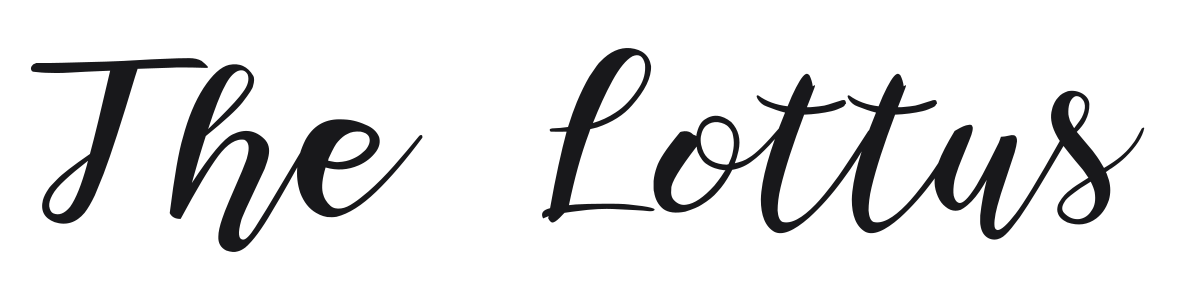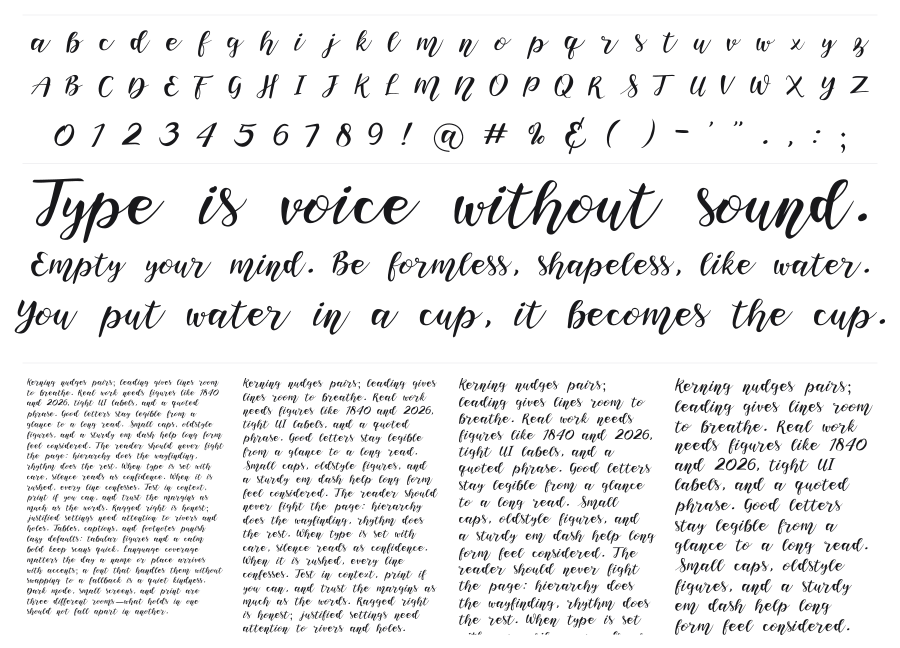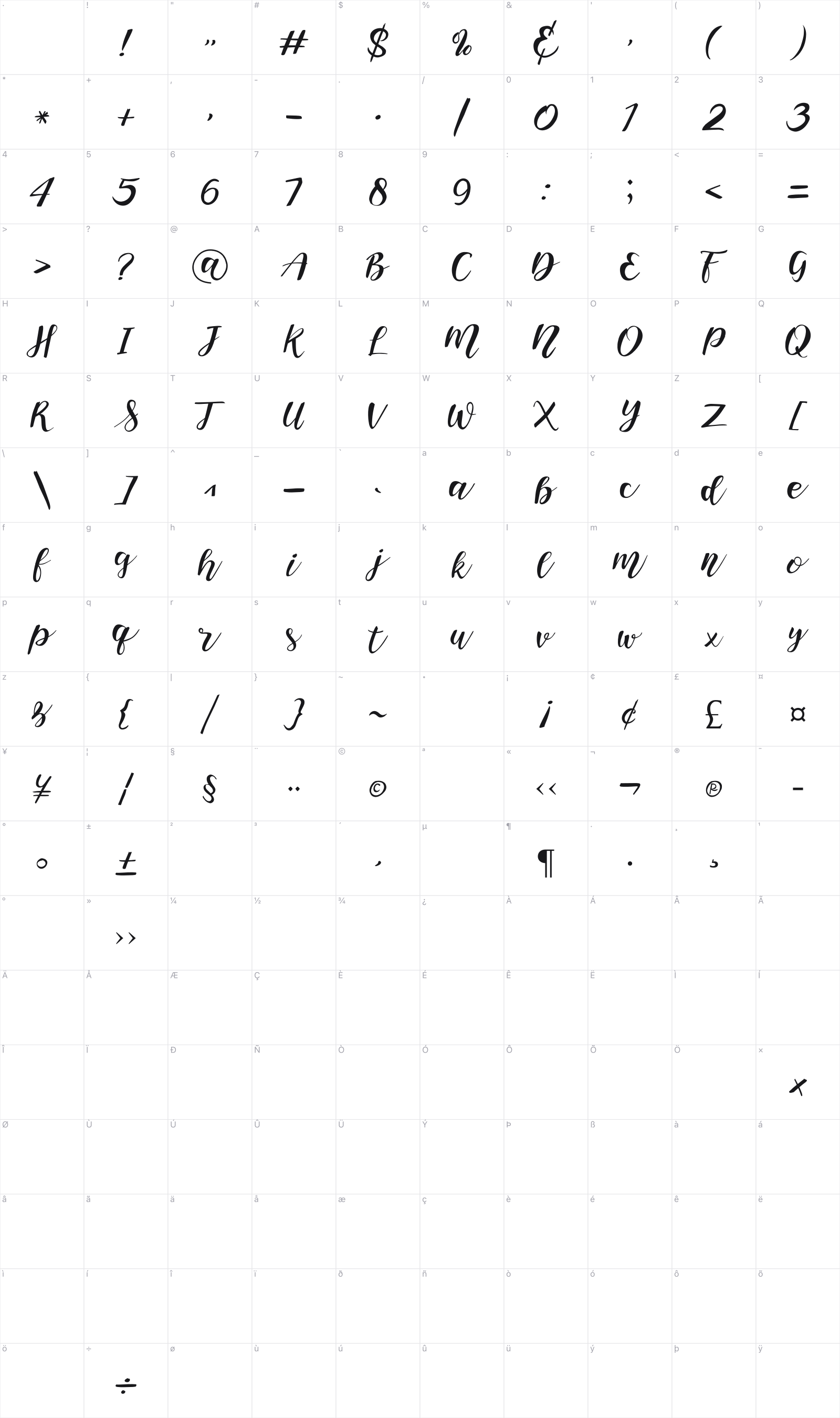
The Lottus
The Lottus is a flowing casual script with a bouncy baseline and graceful calligraphic stroke contrast. Sweeping ascenders and looping descenders give it a lively, hand-lettered energy that sits somewhere between relaxed and refined. It suits wedding stationery, packaging, social media graphics, and any project that needs a personal, crafted touch.